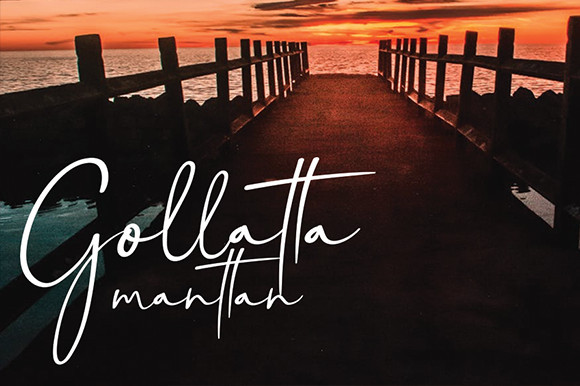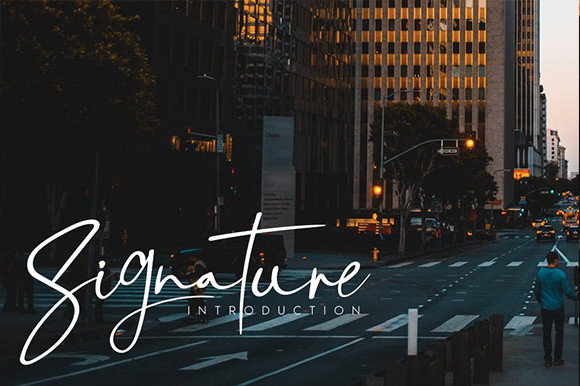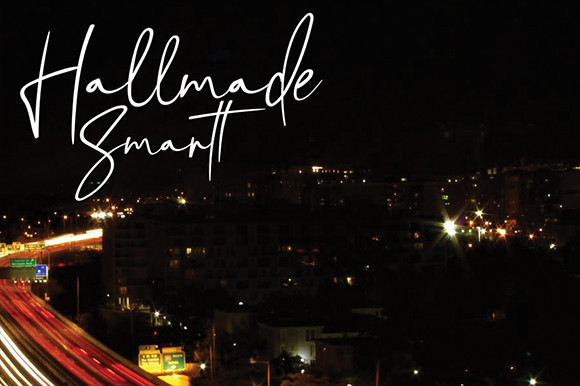
Gollatta Manttan Font
Gollatta Manttan is a flowing, beautiful handwritten font. It will elevate a wide range of design projects to the highest level, be it branding,
headings, wedding designs, invitations, signatures, logos, labels, and much more! Use this gorgeous and unique font to bring any project to life!